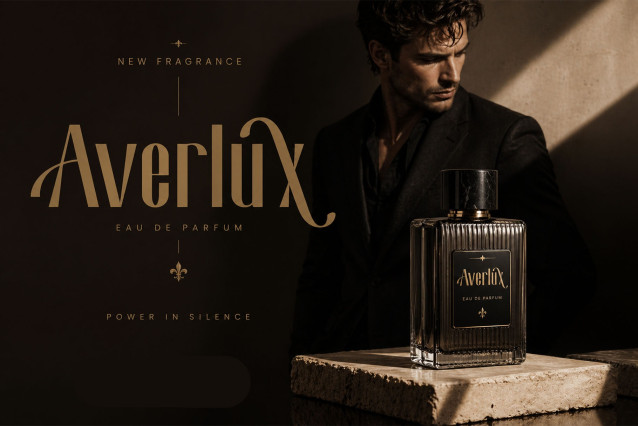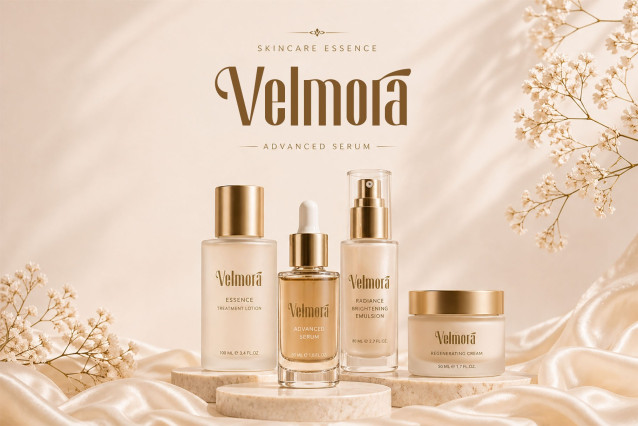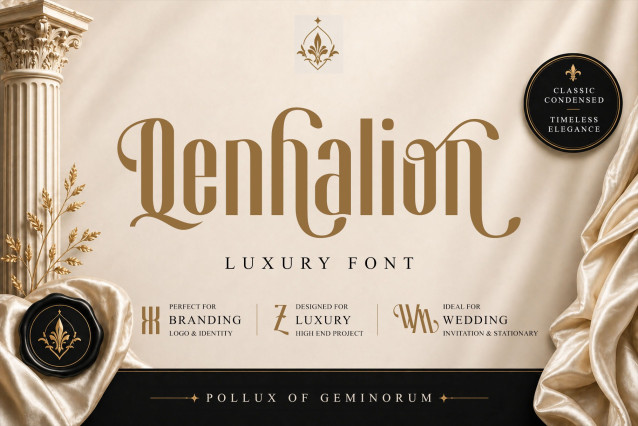
Qenhalion Font
Qenhalion Font – Infuse timeless elegance into your high-end creative projects with Qenhalion today. This classic condensed luxury font delivers sophisticated letterforms to upgrade your brand presentation. Therefore, it serves as the ultimate typography solution for premium branding and luxury goods. You should browse our full Luxury Fonts collection to find more exquisite digital assets. Moreover, this typeface brings sculpted lines and a graceful contrast to your visual storytelling. Consequently, your designs will attract high-profile clients and premium customers instantly.